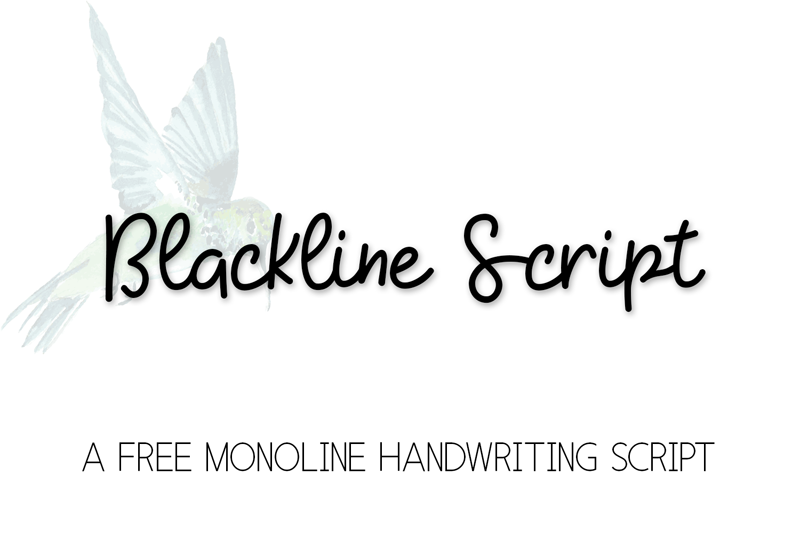
A basic handwritten script with ligatures and language support. Free for commercial use. The font files themselves are not to be redistributed unless you have prior written permission from myself. See more of my work on Creative Market: https://crmrkt.com/B9xxRD Or on my website: https://kristyhatswell.com |